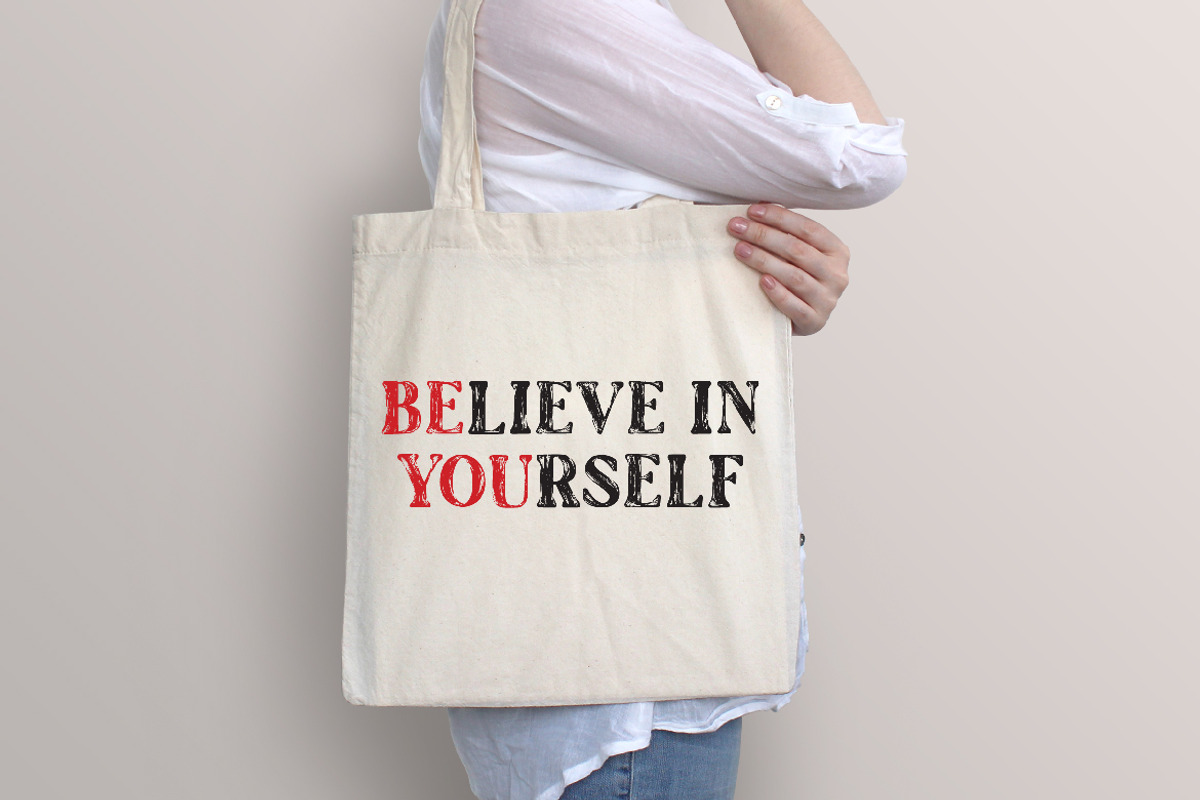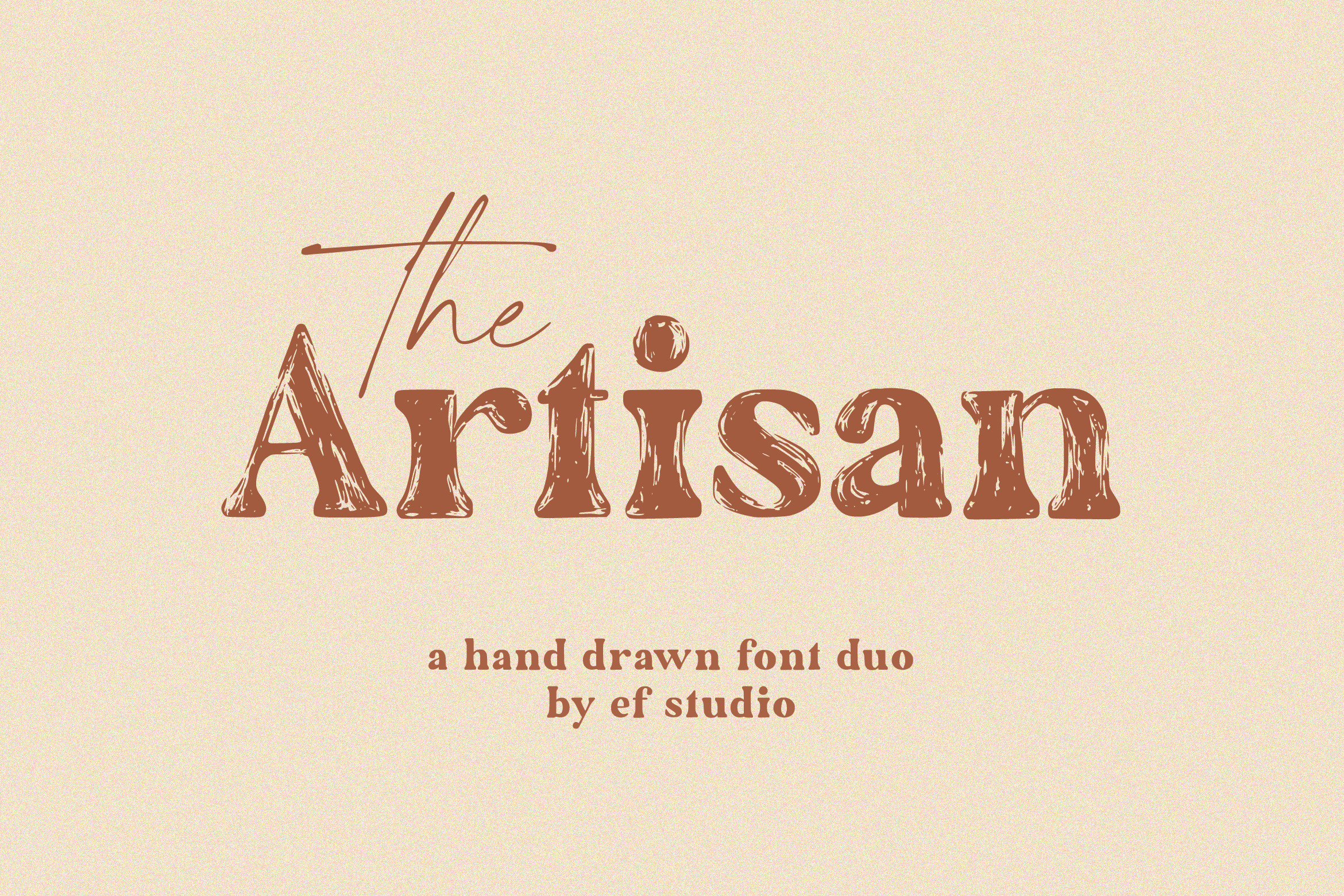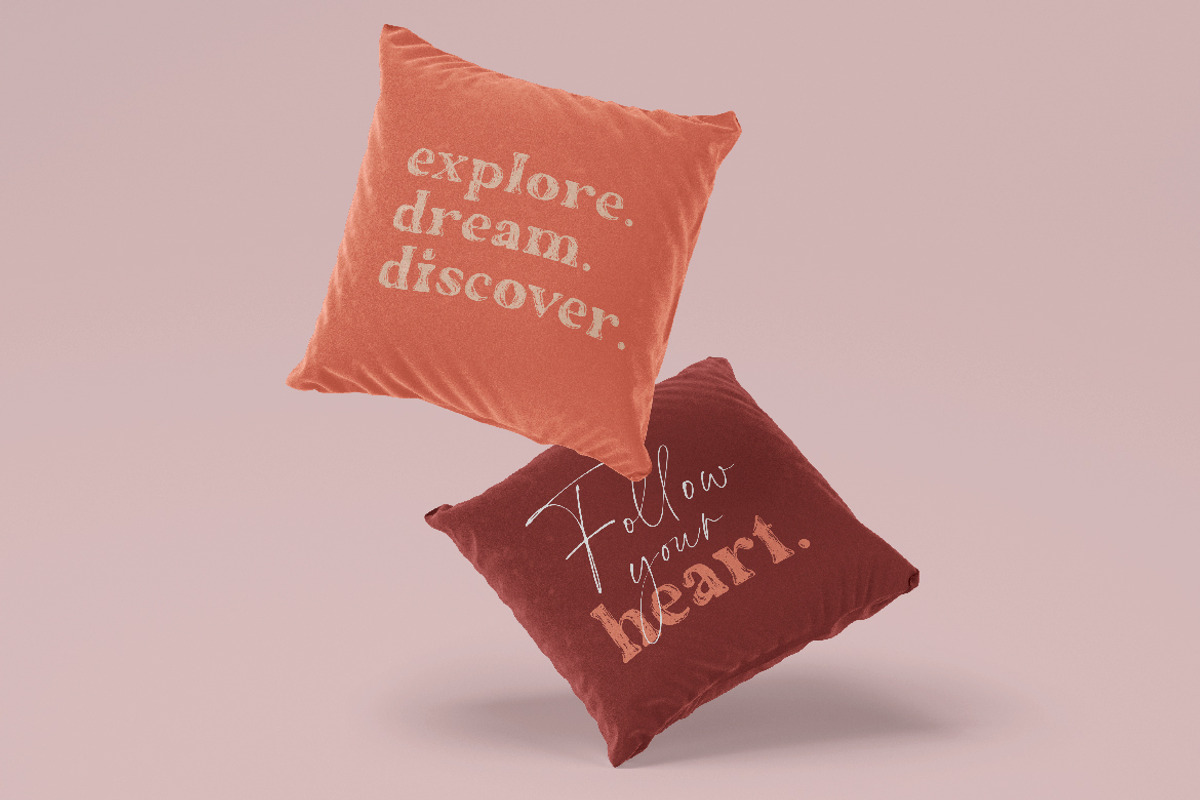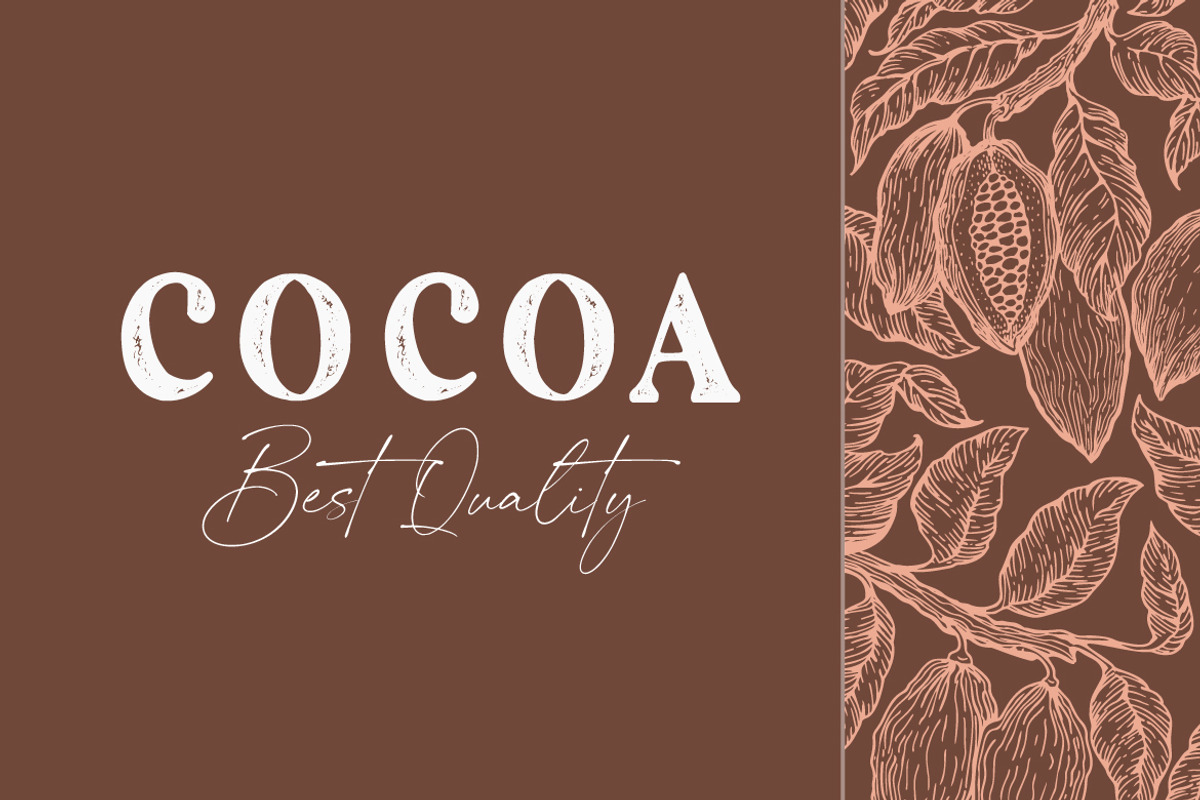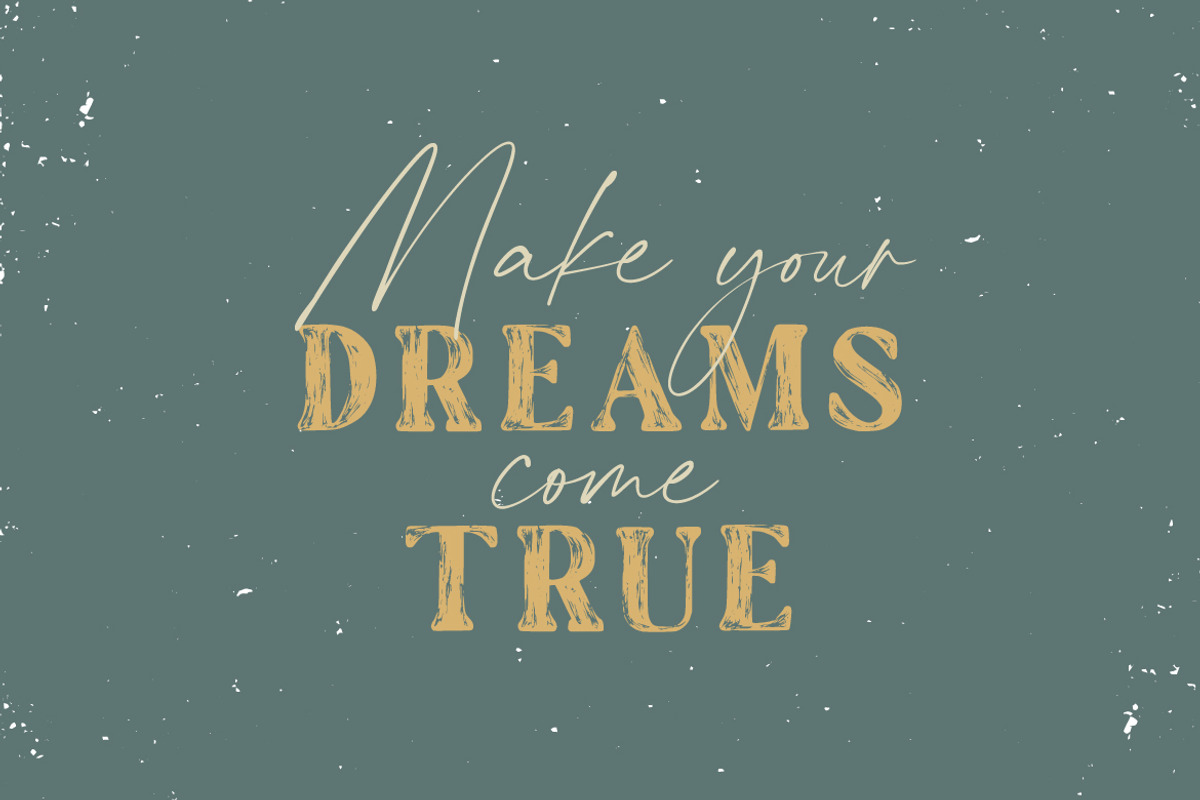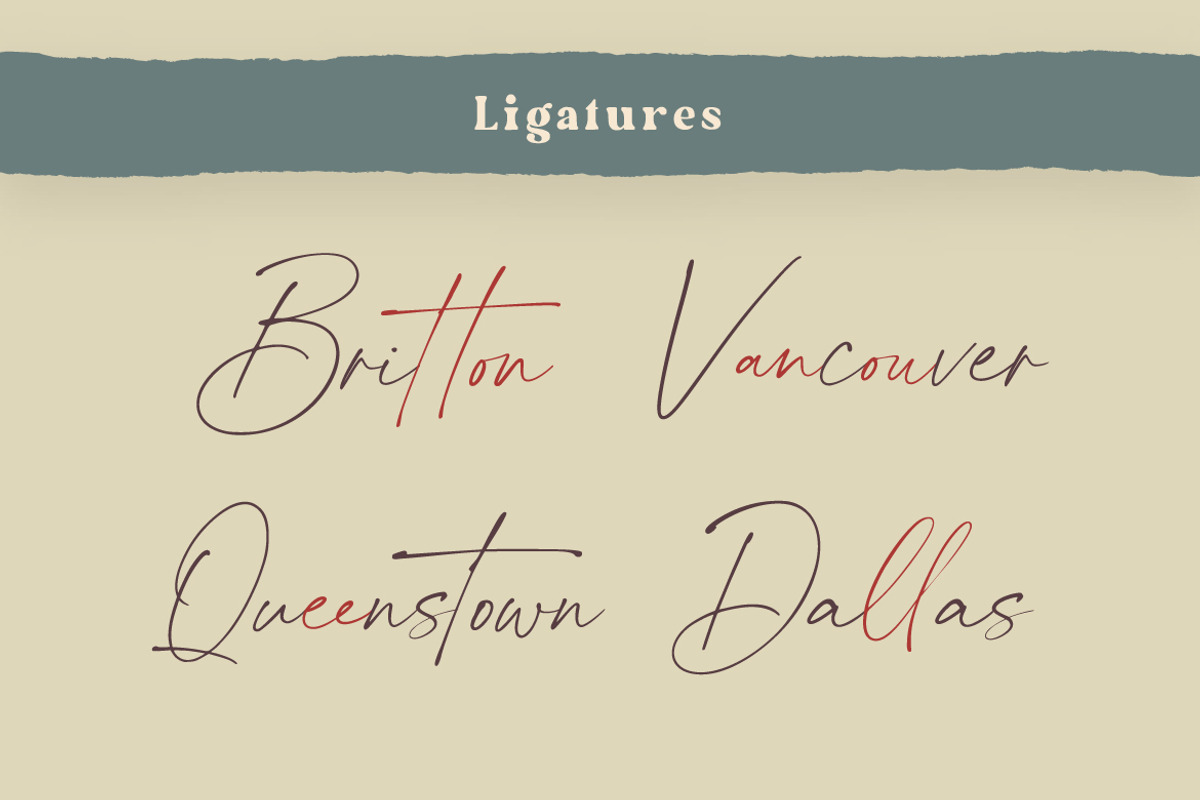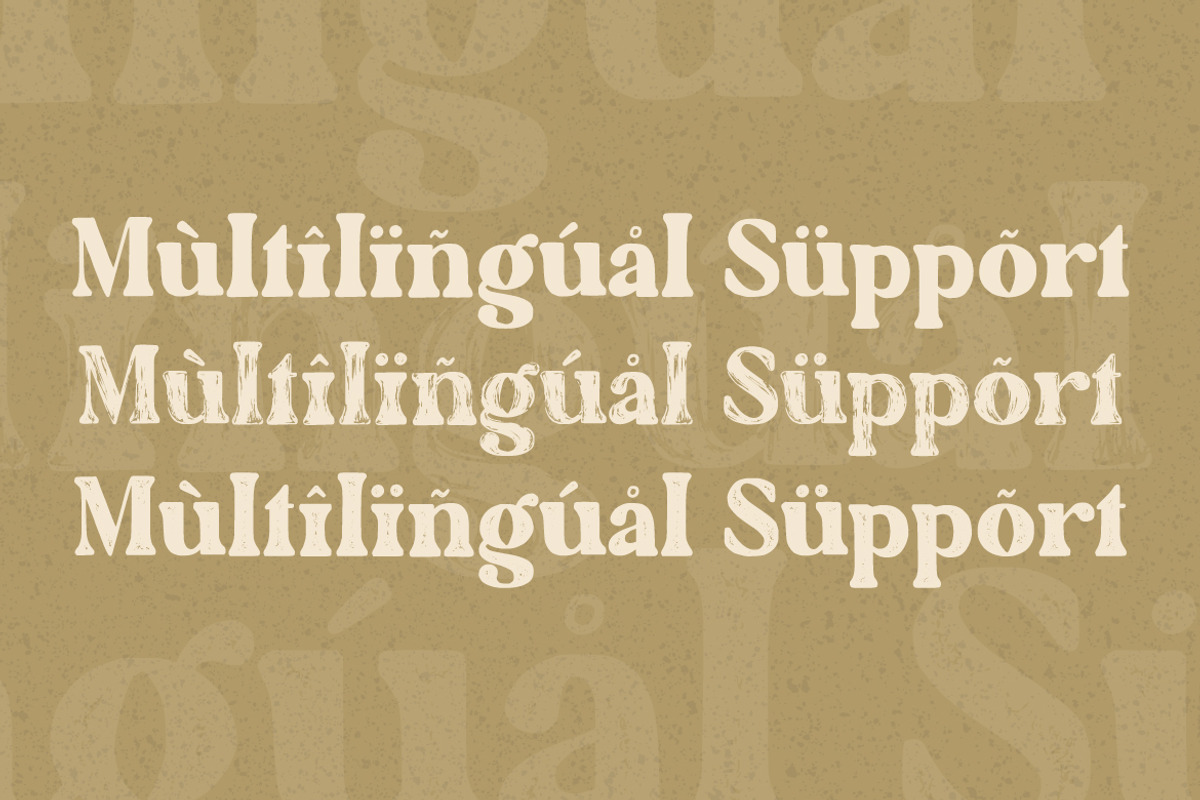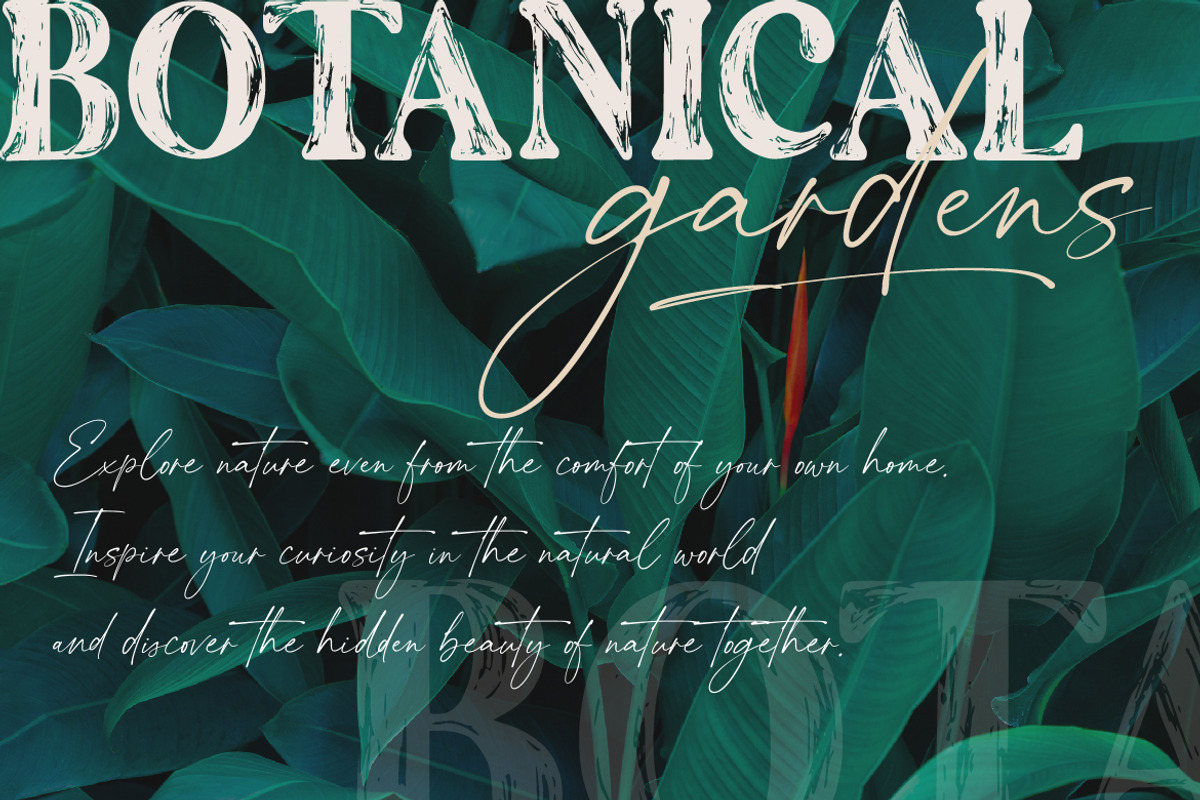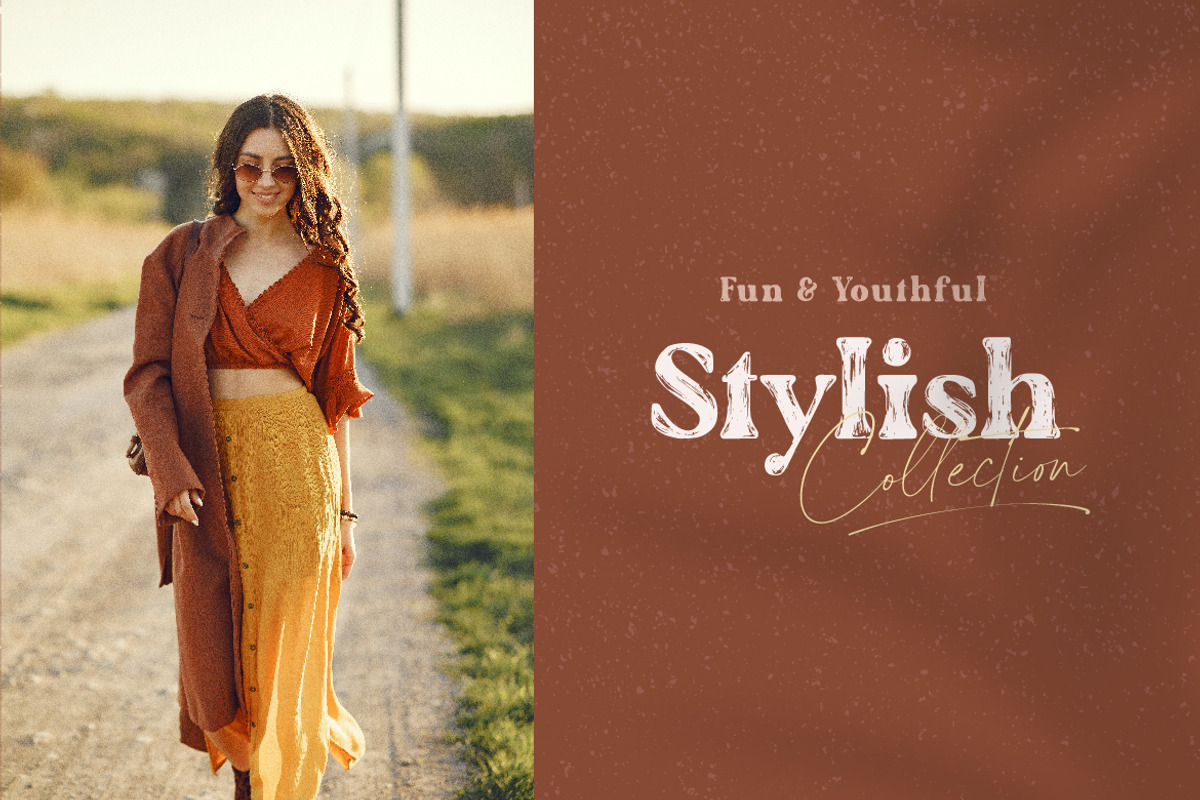
The Artisan is a hand drawn font duo. This font consists of 3 styles serif and 1 script. This font suitable to used for every project like branding, logo, print on goods, merchandise, website, quotes, social media, and others. The combination of both this font very unique, modern and artistic. You will get :
- 3 styles serif font with full set of lowercase and uppercase letters, numerals and punctuation, multilingual symbols.
- 1 script font with full set of lowercase and uppercase letters, numerals and punctuation, multilingual symbols, ligatures, and extra swashes.
This font support 17 languages. Those are : Afrikaans, Albanian, Catalan, Danish, Dutch, English, Estonian, Finnish, French, German, Icelandic, Italian, Norwegian, Portugese, Spanisch, Swedish, and Zulu.